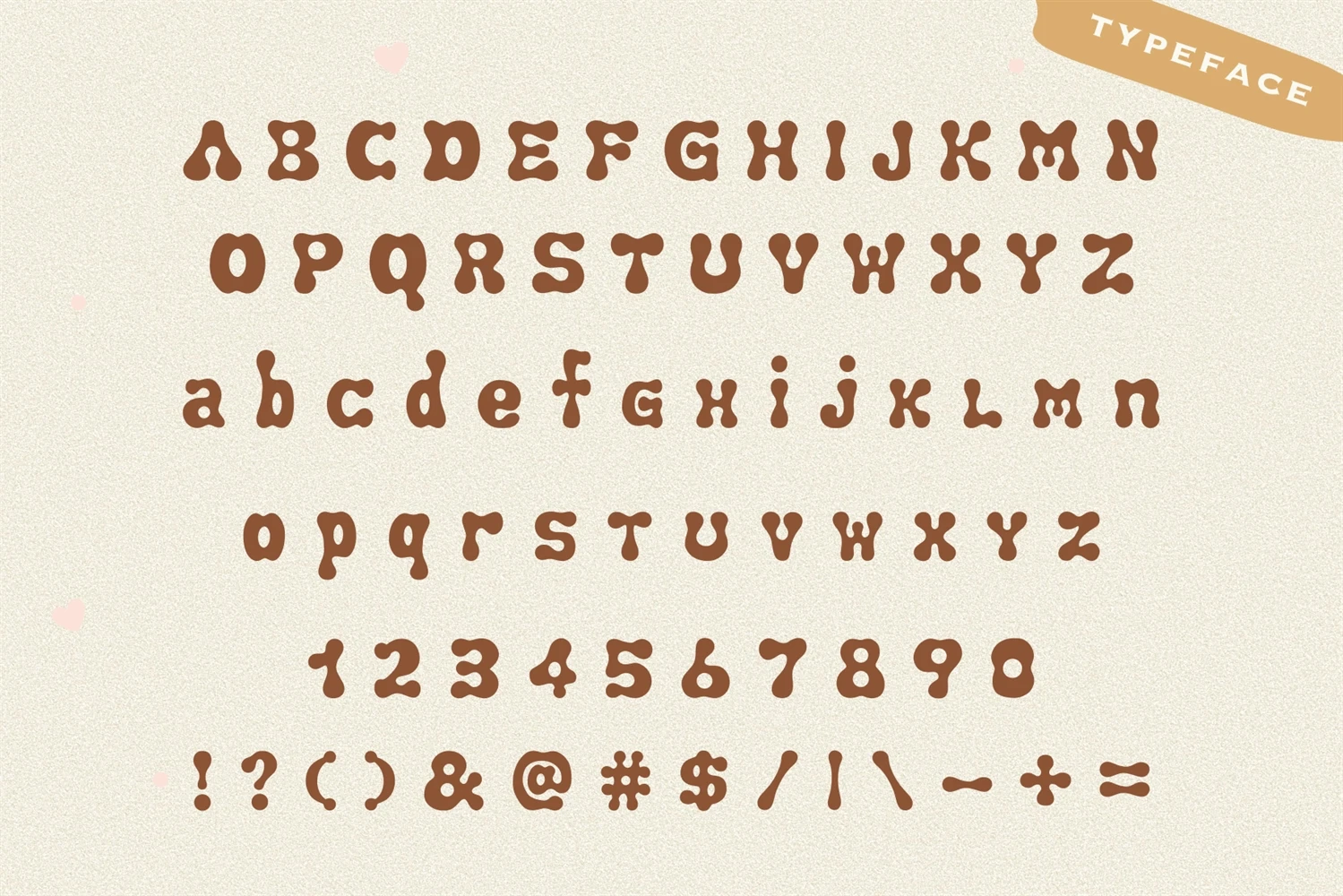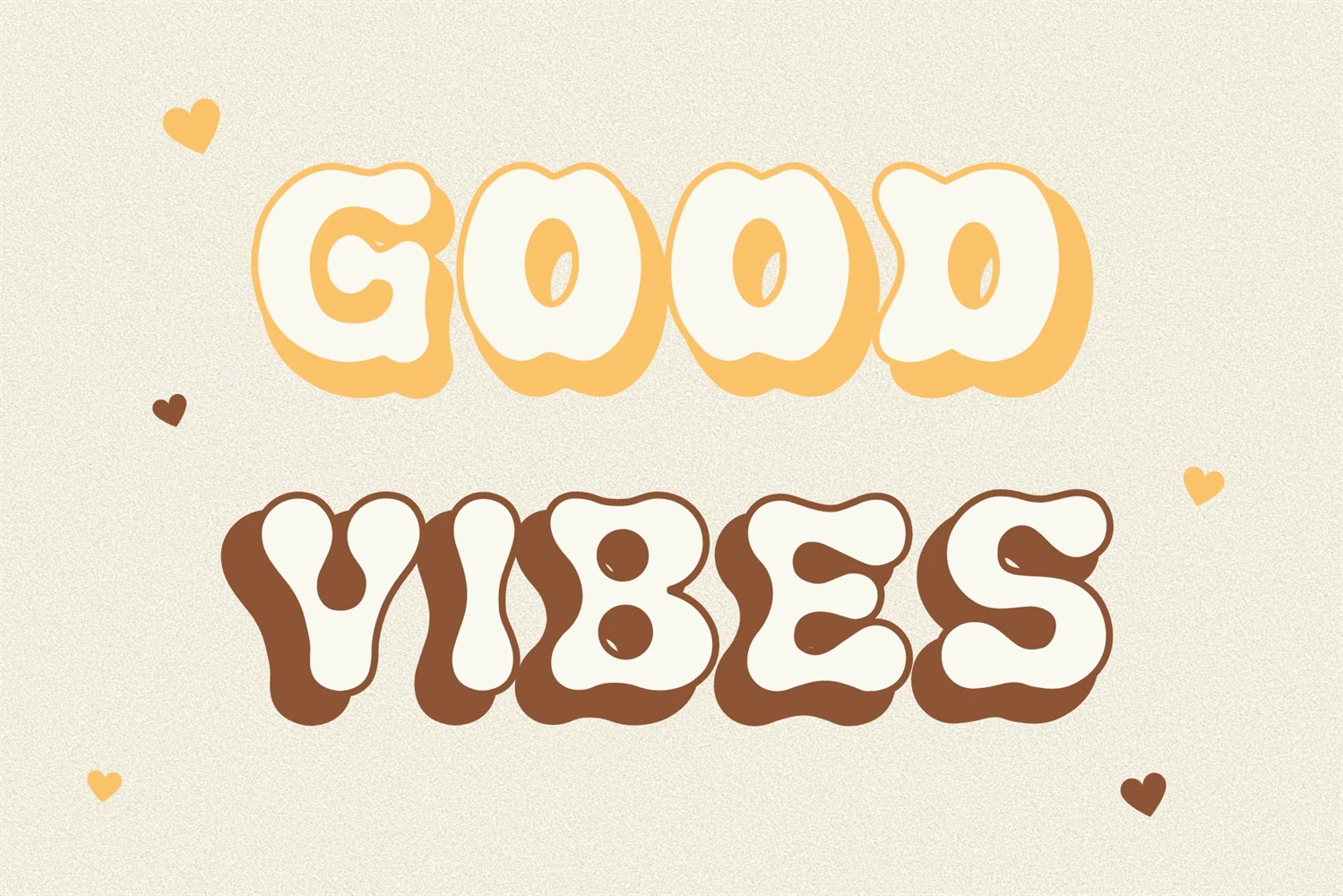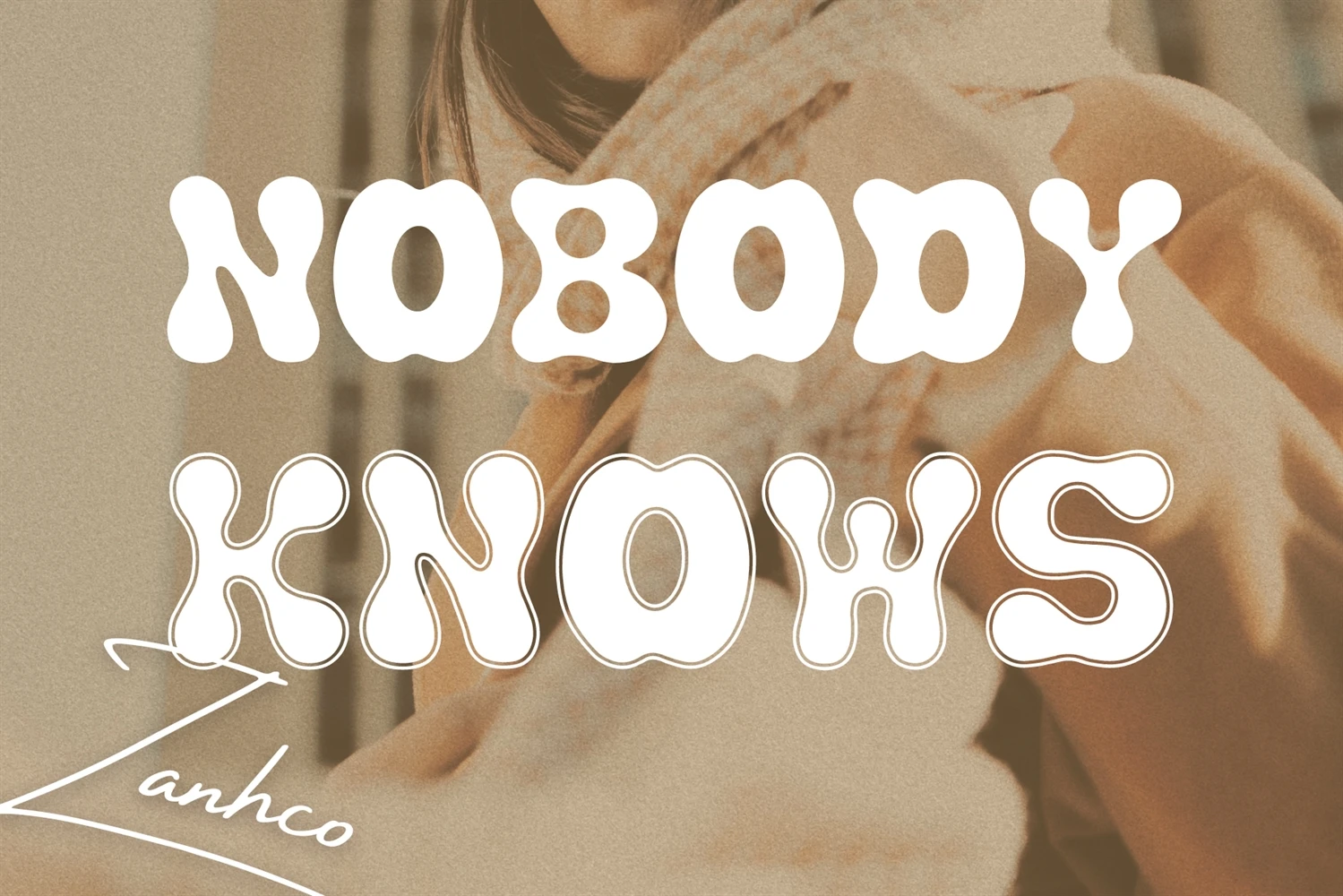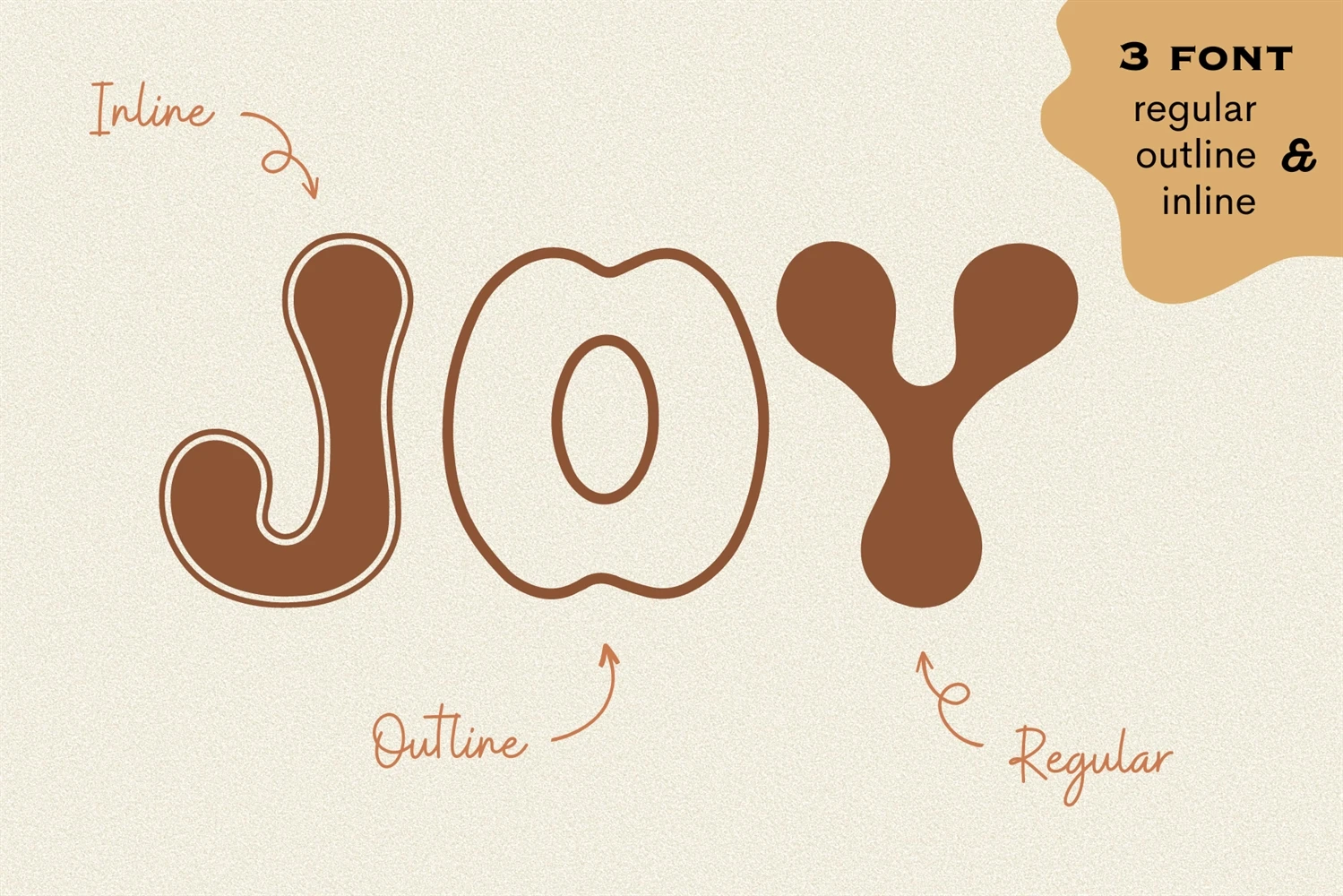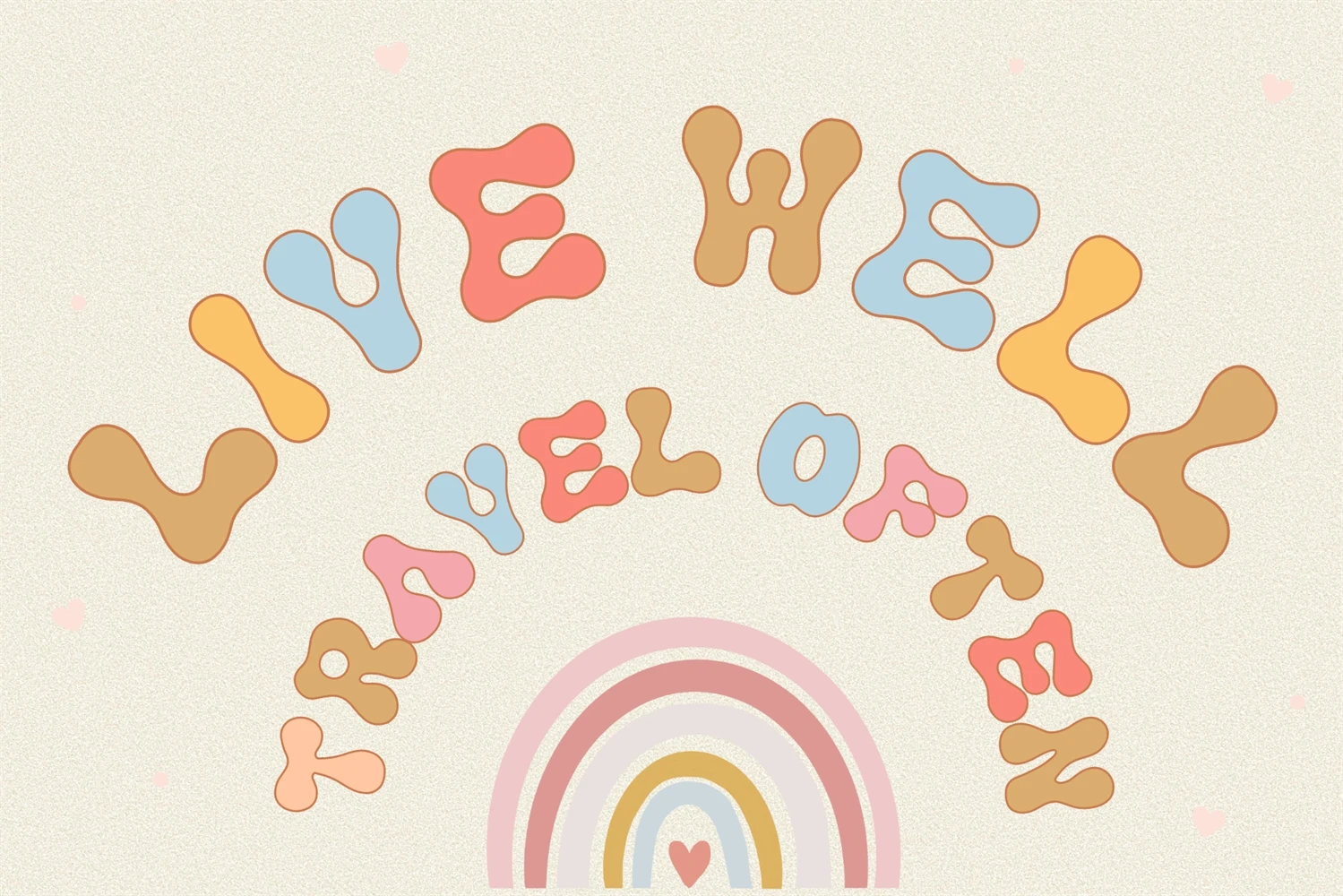
Shamu Retro Font is a modern trendy retro and y2k style font that is not only on-trend and eye-catching but also incredibly versatile in every project. Whether youre working on product branding or content use, creating a display headline, or designing packaging for your latest project. Shamu Retro font will surely bring a super cool feel to your piece of work effortlessly !